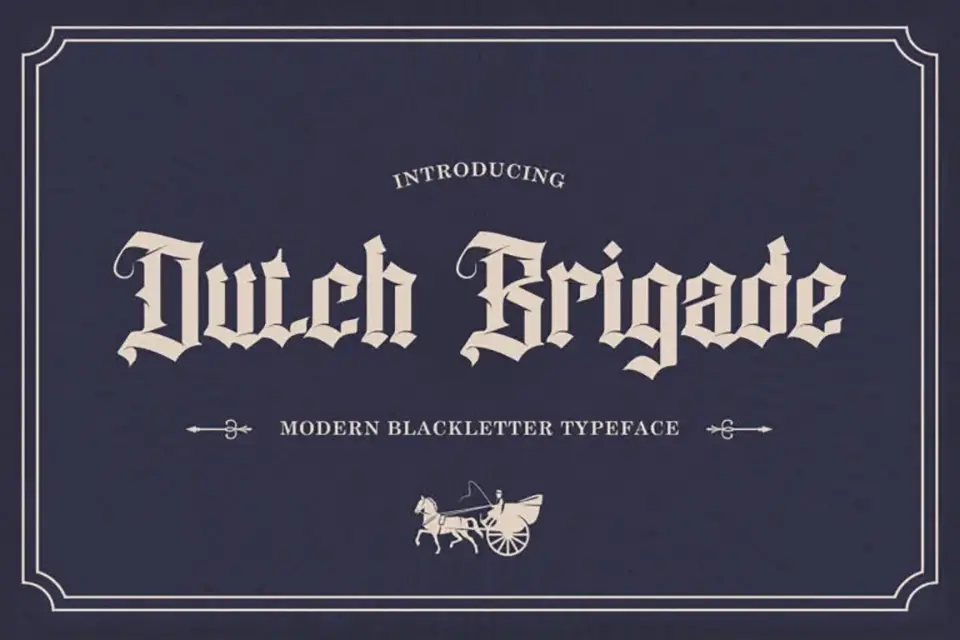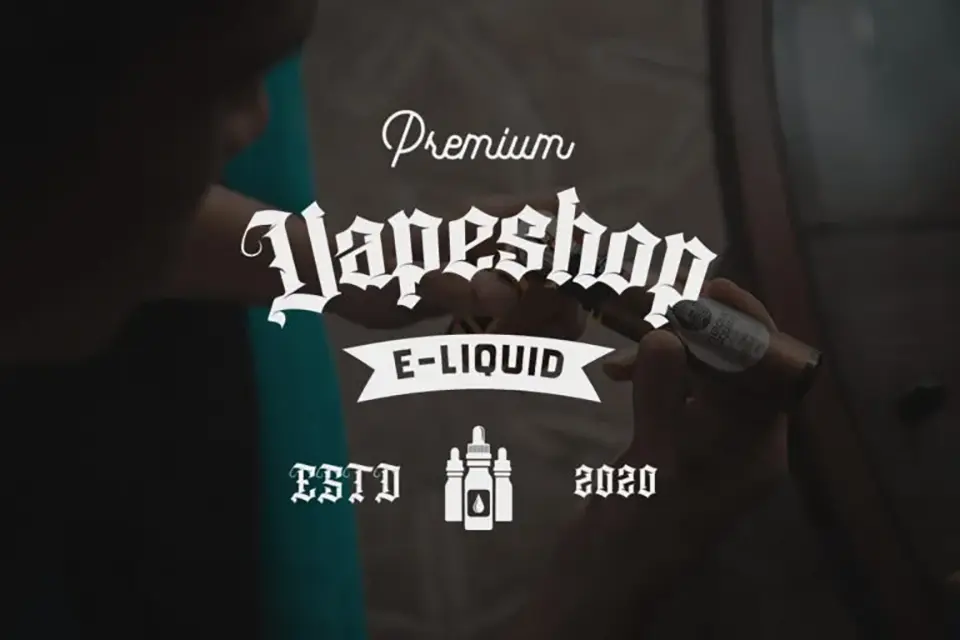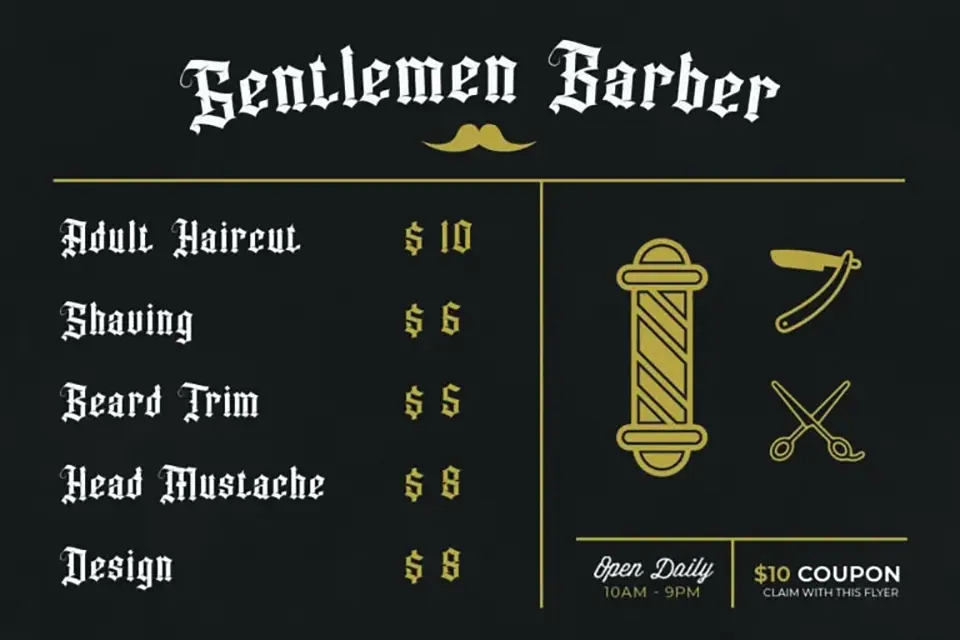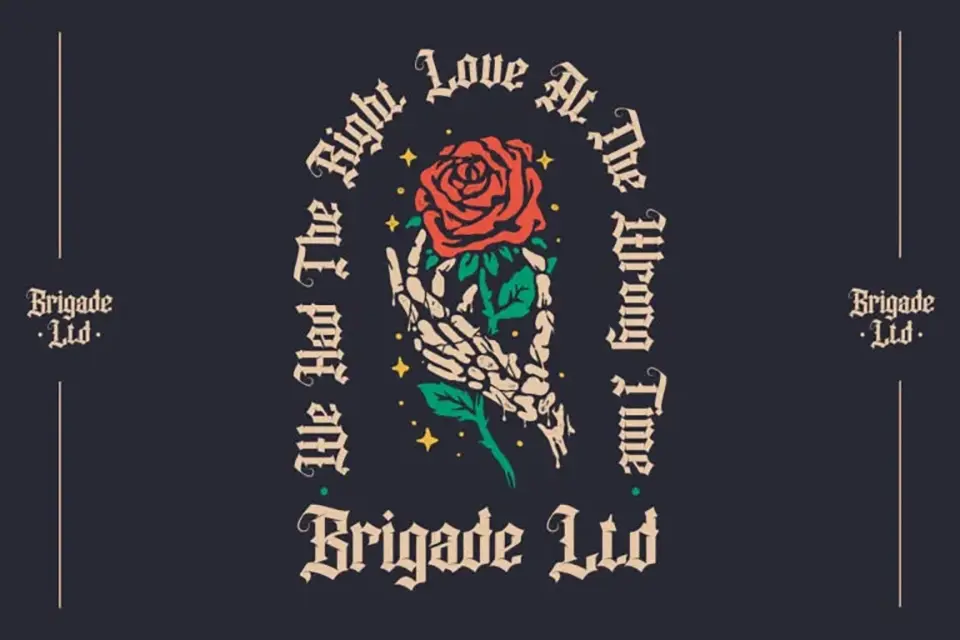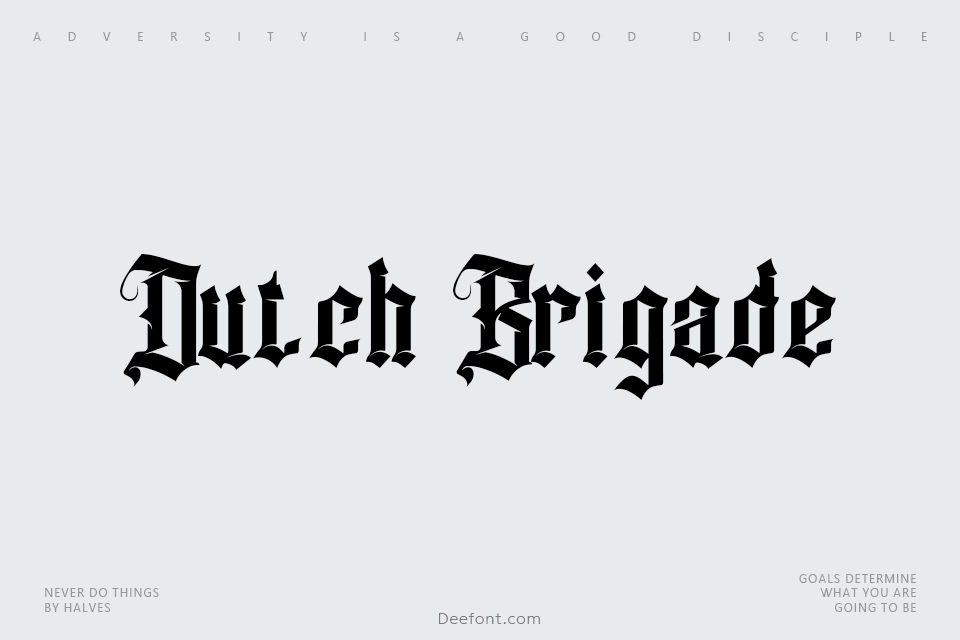
Dutch Brigade Font
Dutch Brigade is a modern blackletter font designed by Typefactoryco that combines ornamental elegance with contemporary appeal. Featuring intricate details and extra ornaments, this versatile typeface excels in product logos, posters, barber shop designs, headlines, packaging, badges, and wedding cards. With 196 glyphs supporting multiple languages, the font delivers sophisticated typography for both vintage and modern design projects, making it an ideal choice for designers seeking decorative display solutions.